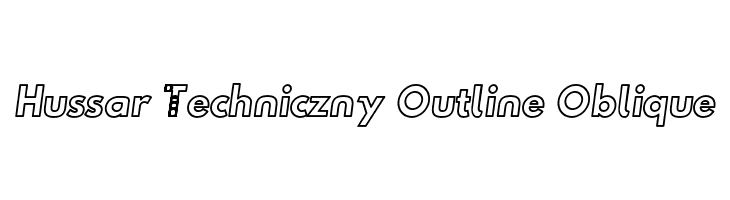
A modern, sans-serif font with smooth, rounded edges and uniform stroke width.
A modern, geometric font with a sleek and uniform design.
A bold, modern font with geometric shapes and rounded corners.
A modern, italicized font with a sleek and dynamic appearance.
A modern, geometric font with clean, open lines and a hollow interior.